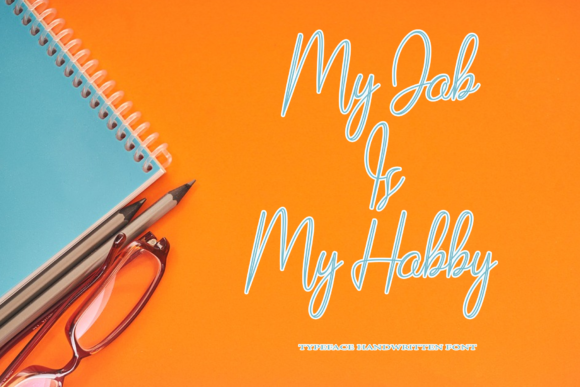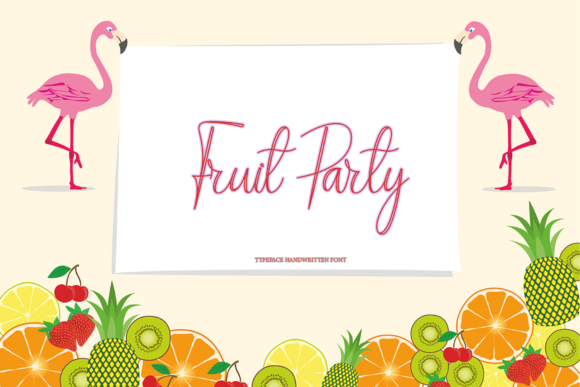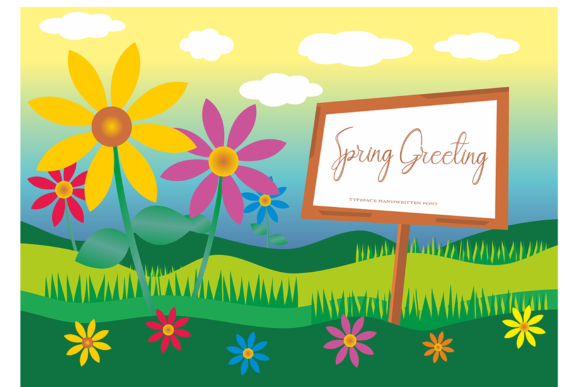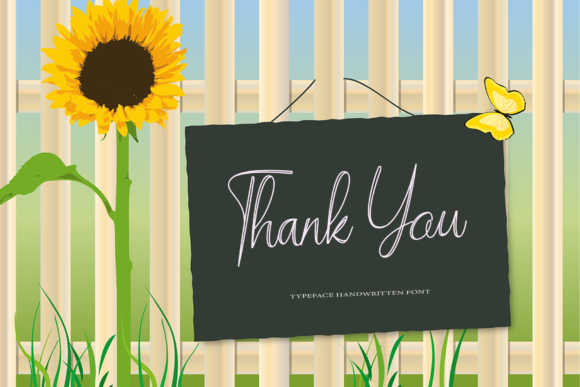
Summer Vibes in Every Line: Discover the Magic of Hello Summer Font
There’s something magical about the first day of summer, isn’t there? The sun shines brighter, the air is filled with the sweet scent of blooming flowers, and our creative juices start flowing like never before. As designers, we’re always on the lookout for that perfect font to capture the essence of the season. And, my friends, I’m excited to introduce you to the perfect companion for your summer projects: Hello Summer Font.
This beautiful light handwritten font is more than just a pretty face – it’s a game-changer. With its unique feel and stunning impact, it will add a luxury spark to any design project you wish to create. Whether you’re designing a summer-inspired brochure, a wedding invitation, or a social media campaign, Hello Summer Font is the perfect choice to make your designs stand out from the crowd.
- Unique Characteristics: Hello Summer Font features a playful, cursive script with a modern twist, making it perfect for summer-themed designs, invitations, and social media graphics.
- Kerning and Ligatures: Hello Summer Font includes advanced kerning and ligature pairs, ensuring that text looks smooth and professional, even at small font sizes.
Hello Summer Font Review
I recently had the chance to work with the Hello Summer Font, and I must say it’s a font that’s perfect for the warmest time of the year. ✨ The first thing that caught my attention was its playful and carefree vibe, making it ideal for designs that need a relaxed and casual feel.
- Unique character set: The font has a great mix of uppercase and lowercase letters, numbers, and special characters that add to its charm.
- Perfect for summer themes: The name says it all – this font is perfect for summer-themed designs, from beach party invitations to summer vacation travel brochures.
- Customizable: The font is highly customizable, allowing you to adjust its weight, size, and color to fit your design needs.
- Not ideal for formal designs: While the font is perfect for casual designs, it may not be the best choice for formal or professional designs.
- May be too playful for some audiences: Depending on your target audience, the font may be too playful or childish for some designs.
- May require adjustments for small text: At smaller text sizes, the font may become difficult to read.
Overall, I think the Hello Summer Font is a great choice for designers who need a fun and playful font for their summer-themed designs. While it may have some limitations, its unique character set and high customizability make it a great addition to any designer’s toolkit.
The “Hello Summer Font” is perfect for creating summer-themed designs, such as:
- Social media graphics
- Summer party invitations
- Beach-themed posters
For the most out of the font, use it in conjunction with bright and pastel colors to create a fun and playful atmosphere.